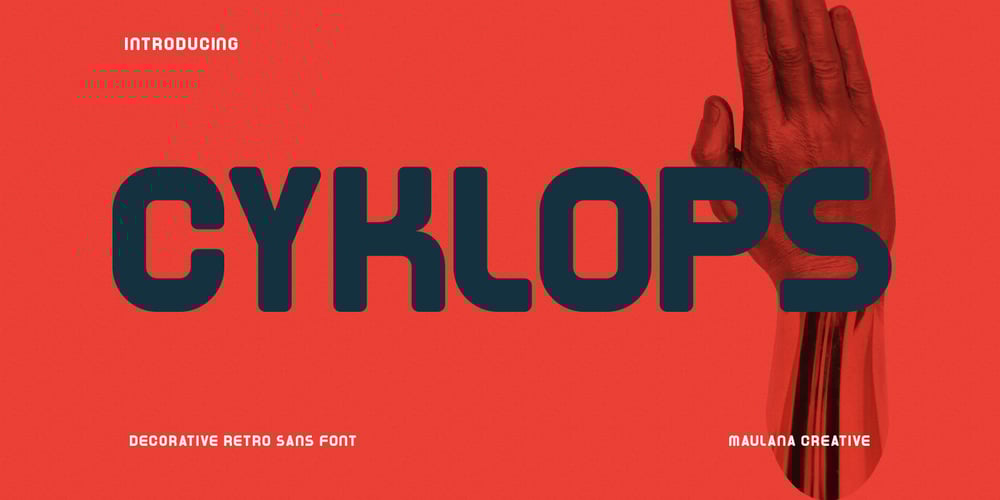
MC Cyklops Font Family was designed by Gilang Maulana and published by Maulana Creative. MC Cyklops contains 1 styles and family package options. Cyklops is a retros decorative sans display font. Bold stroke, fun character with a bit of ligatures and alternates. To give you an extra creative work. Cyklops font support multilingual more than 100+ language. This font is good for logo design, Social media, Movie Titles, Books Titles, a short text even a long text letter and good for your secondary text font with script or serif. Make a stunning work with Cyklops font. Cheers, Maulana Creative